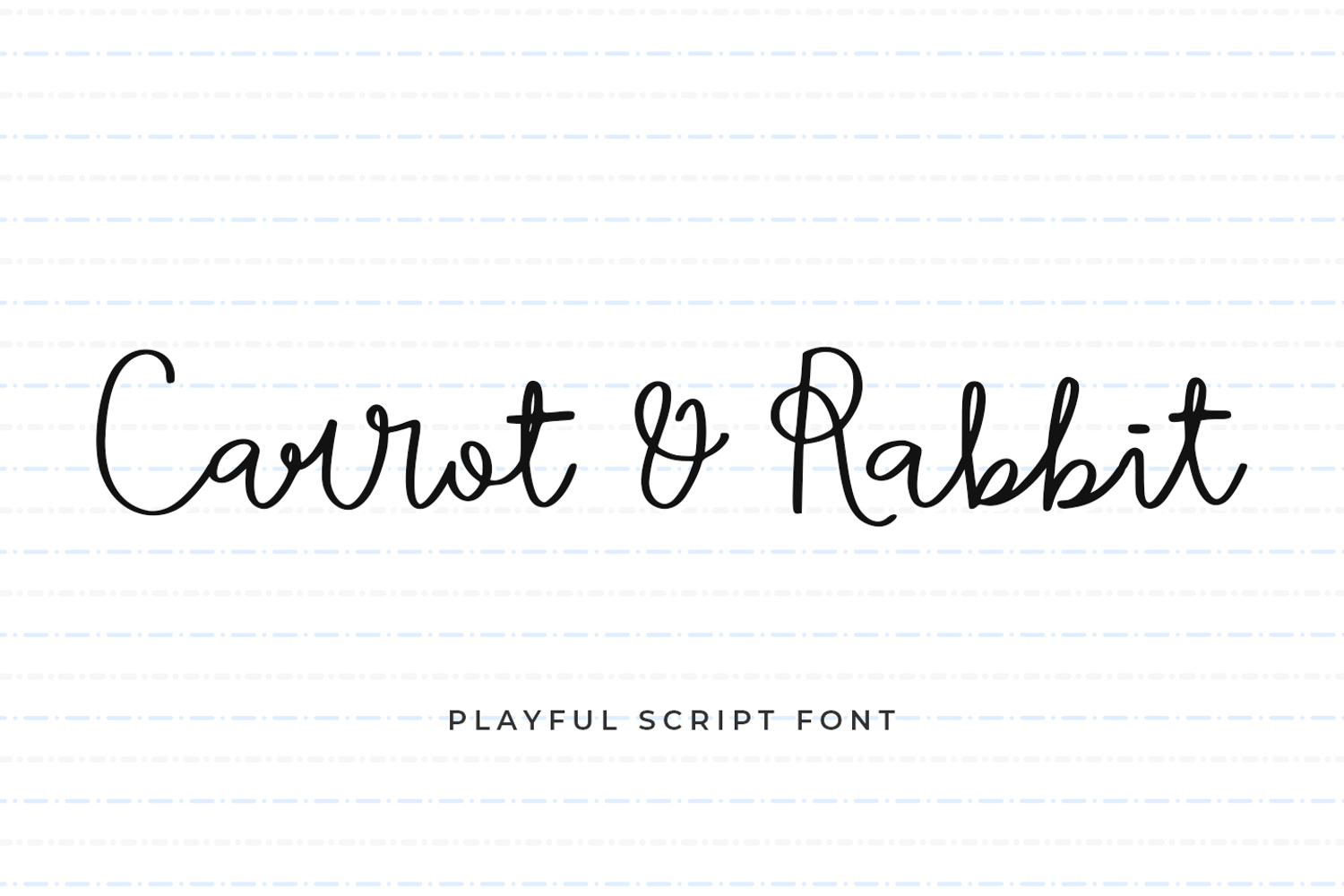
Carrot Rabbit
introducing
CARROT RABBIT
- playful script font-
CARROT RABBIT is beautiful script font.
It is great for branding, quotes, logos, t-shirt designs, tote bag designs, cards, banners, social media, and more.
Carrot Rabbit